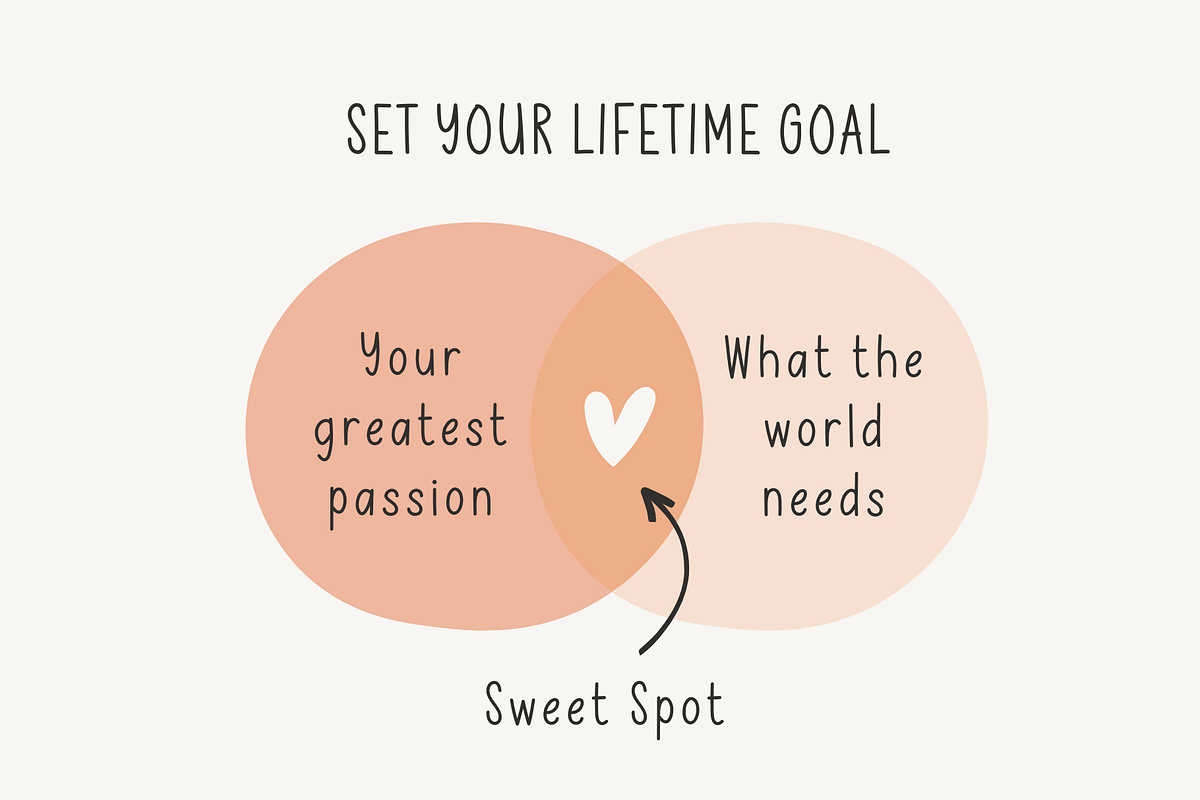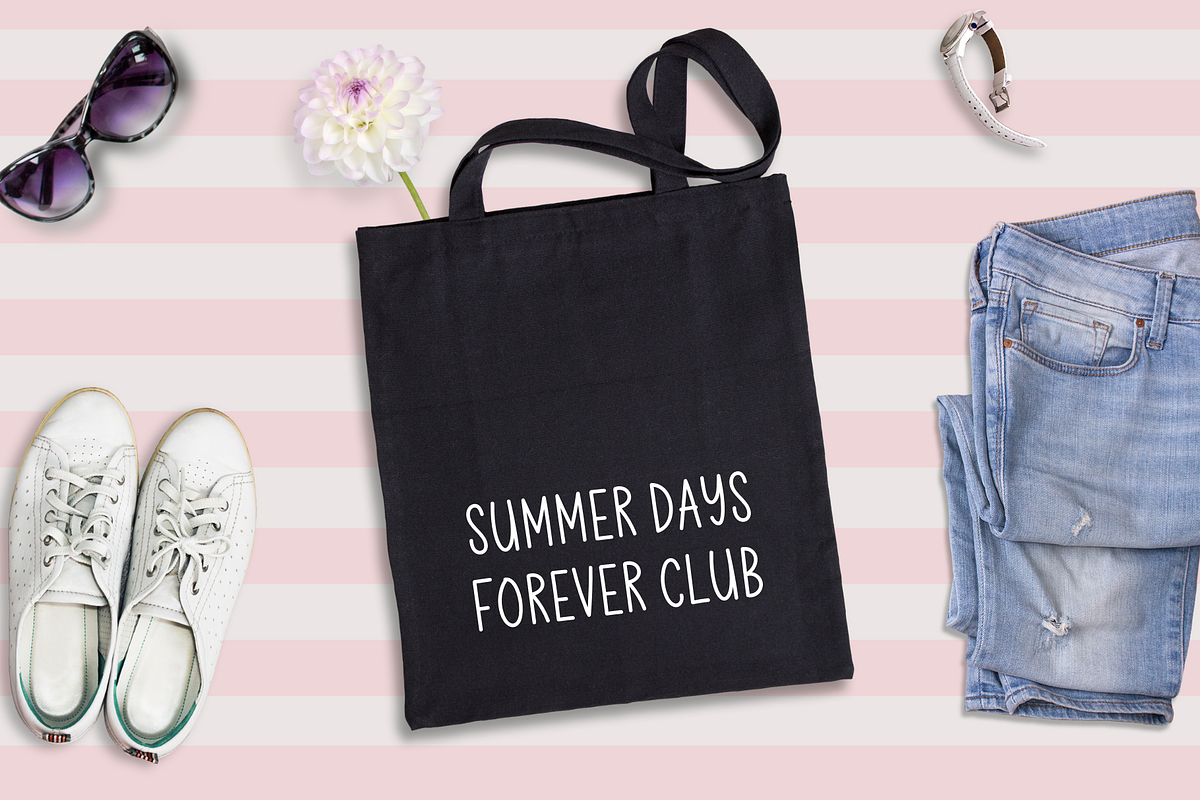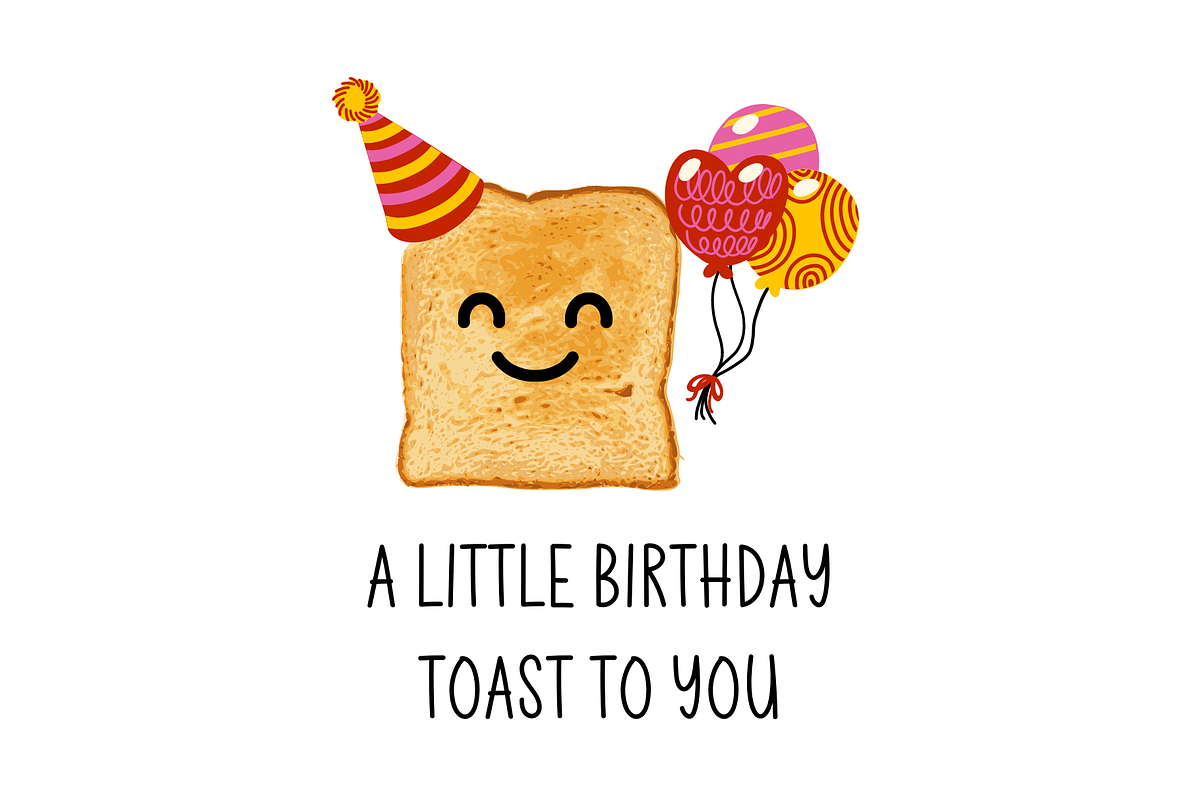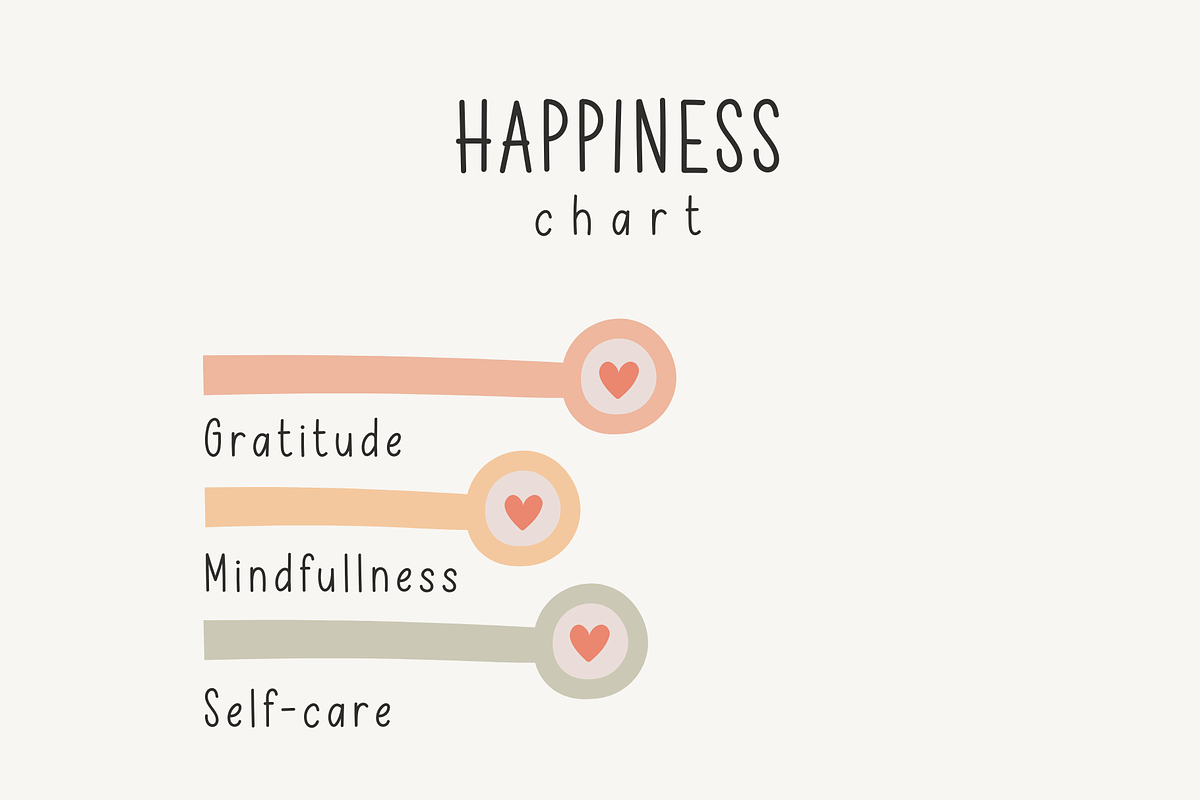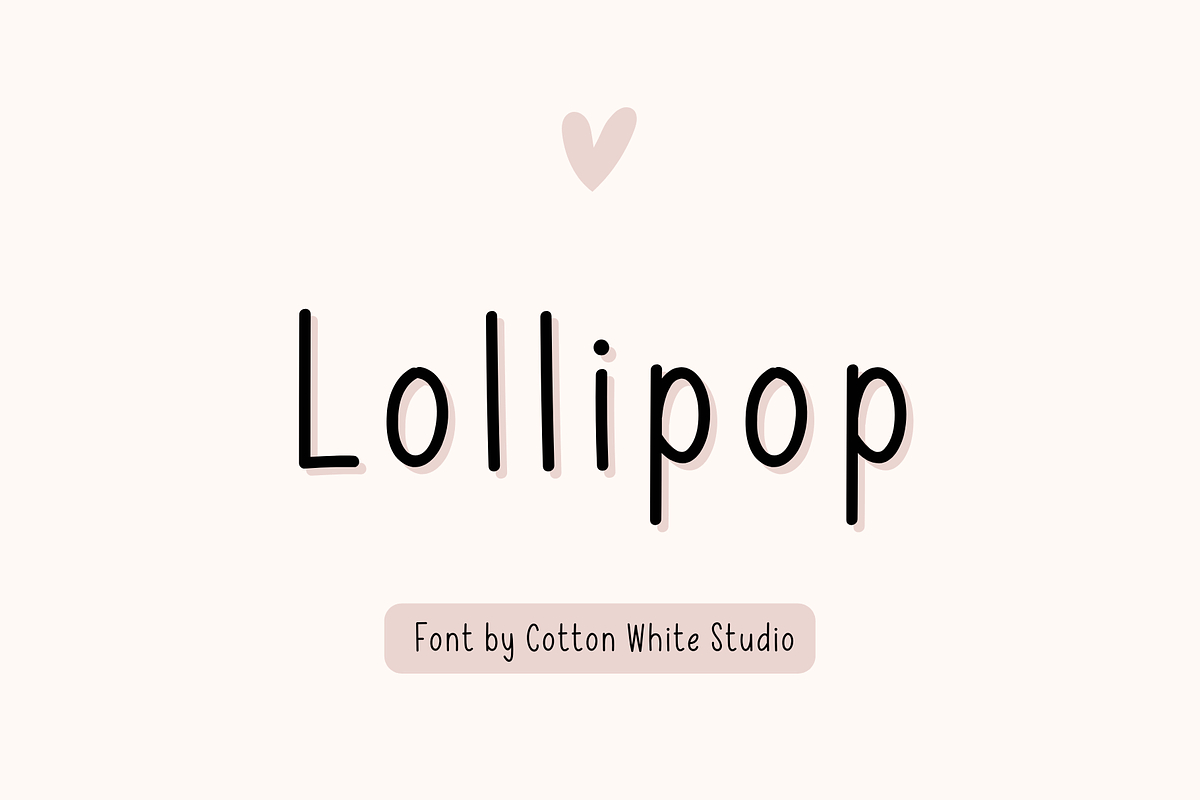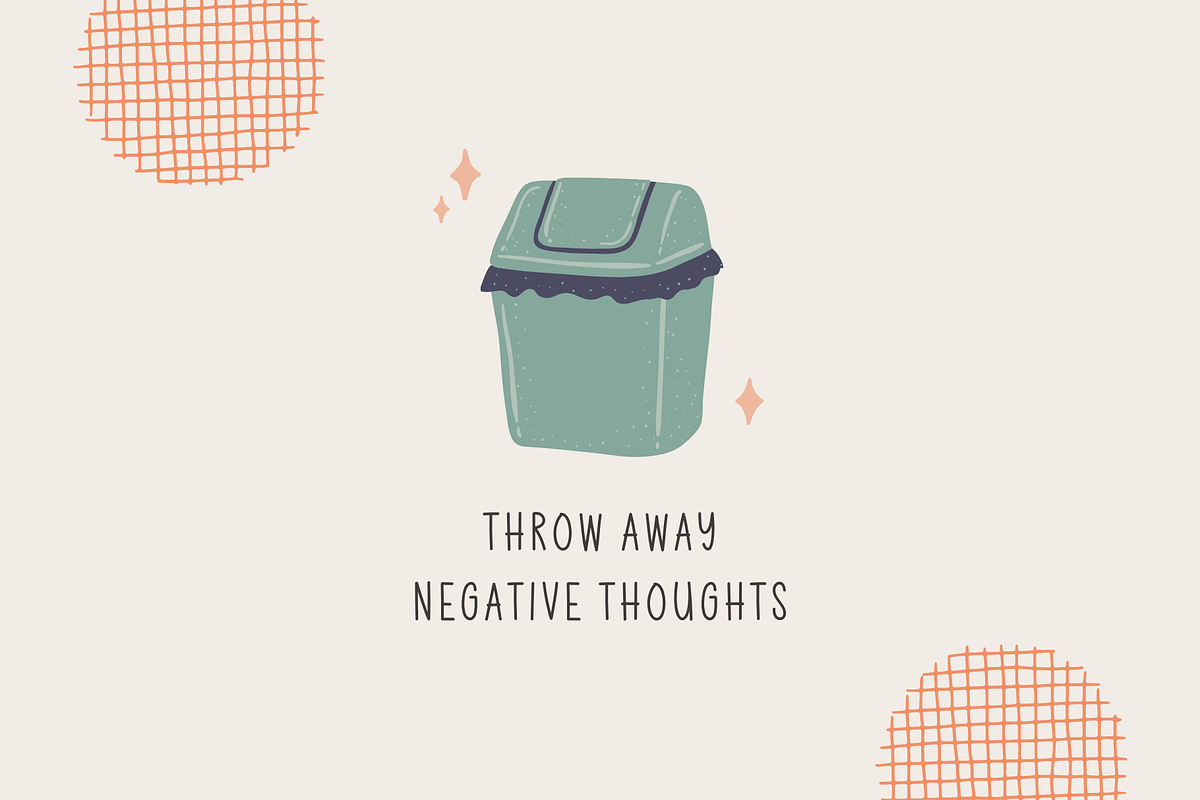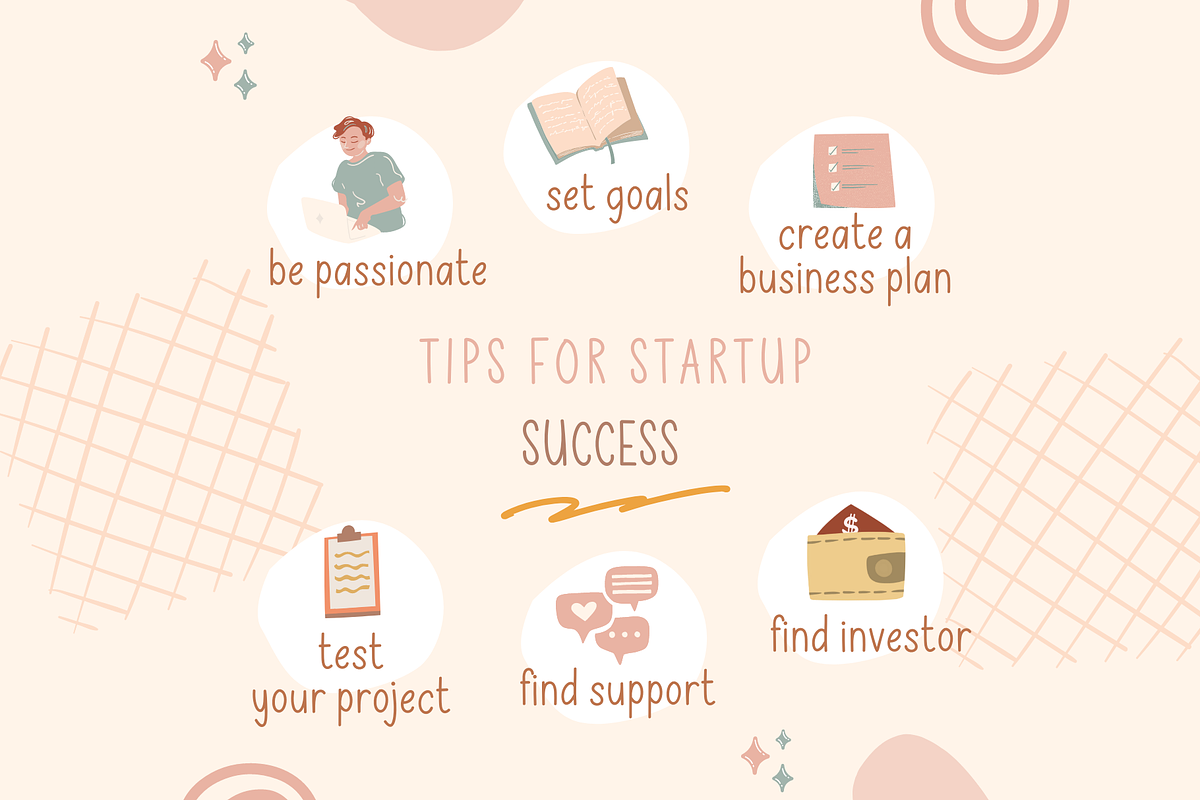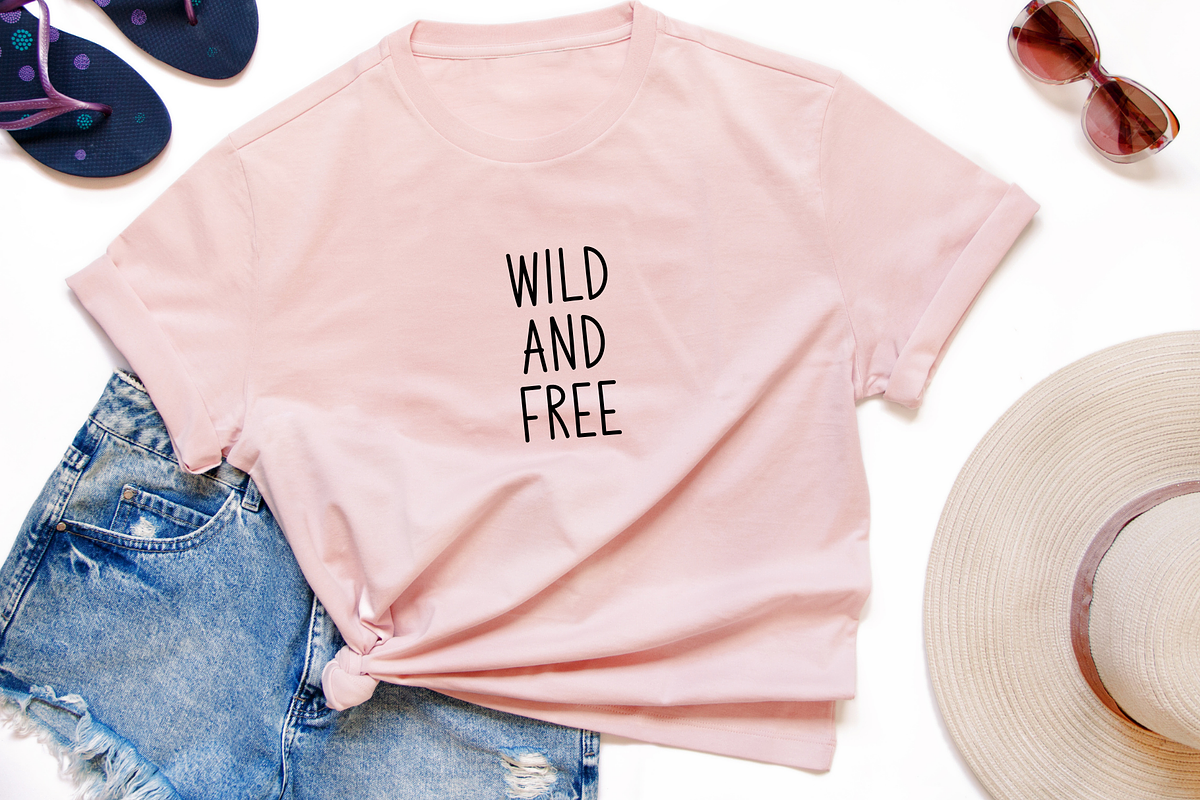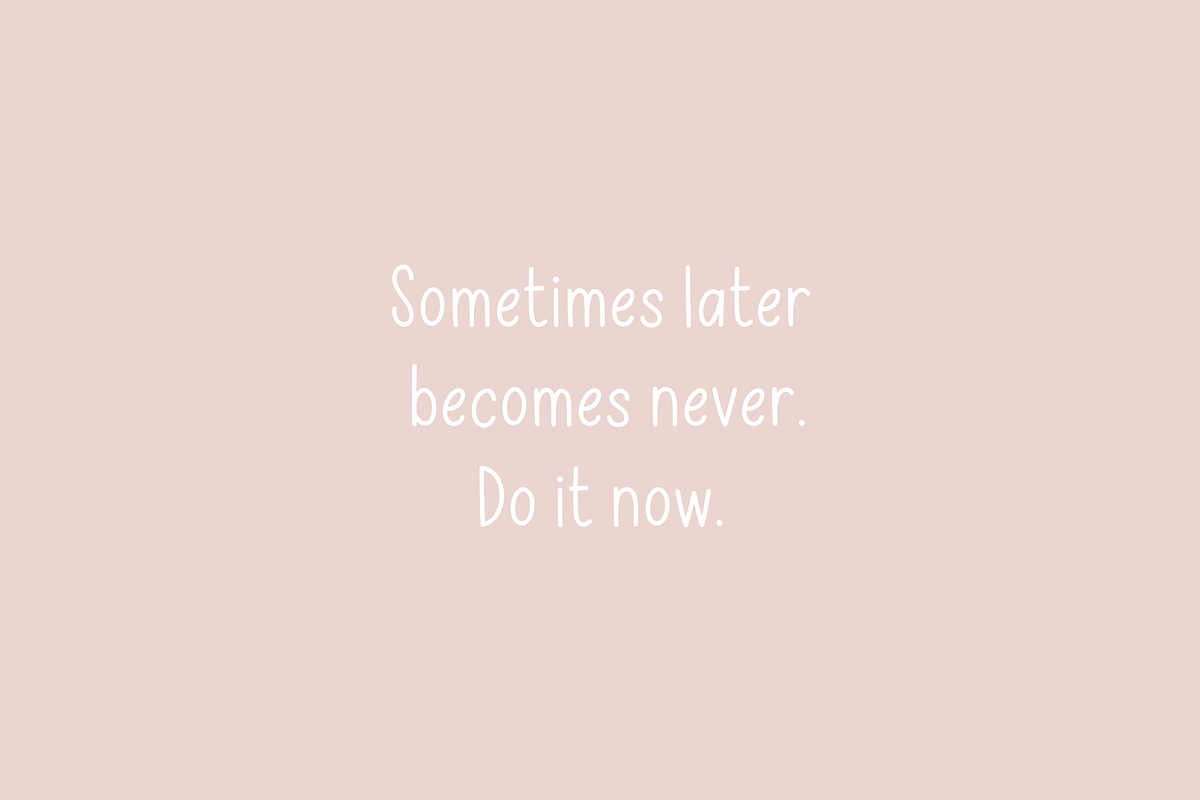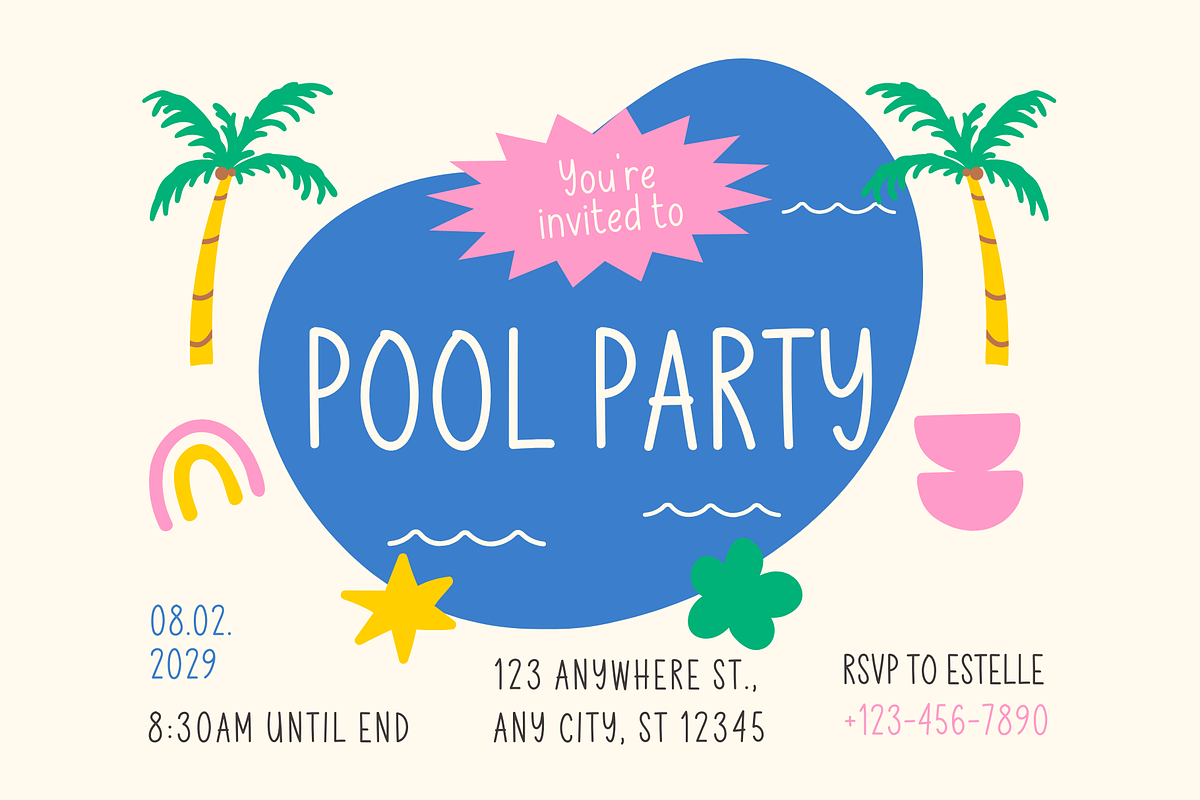
Lollipop
You can use this font to jazz up your digital planner, journal, invitations, note-taking, or anything that requires a handwriting look. Or use it with your projects on in Cricut, Adobe Illustrator, Photoshop, Canva Pro, Silhouette, Procreate, Affinity, Notability, GoodNotes, and more!